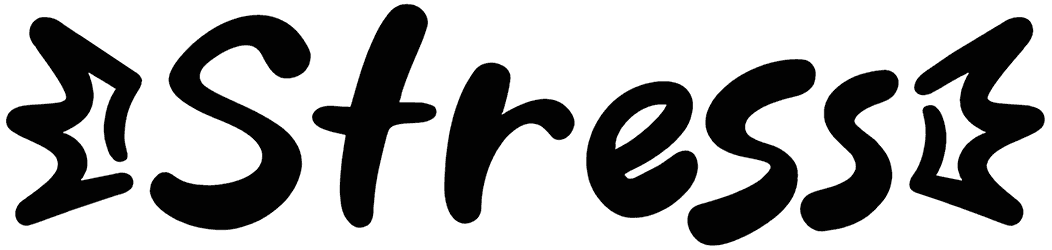
Having a reliable script font would incredibly accelerate the process of designing prominent graphic content such as illustrations, logos, book covers, product packaging, or greeting cards, and in this way, Stress would be your faithful assistant. So we strongly advise you to take advantage of this marker font and share a sense of dynamic, vivacity, joy, or drama.